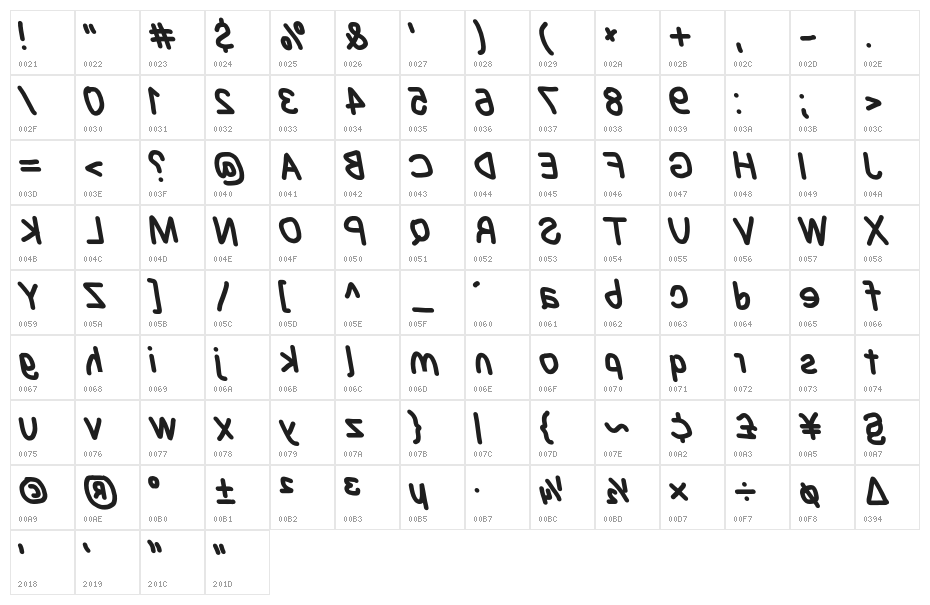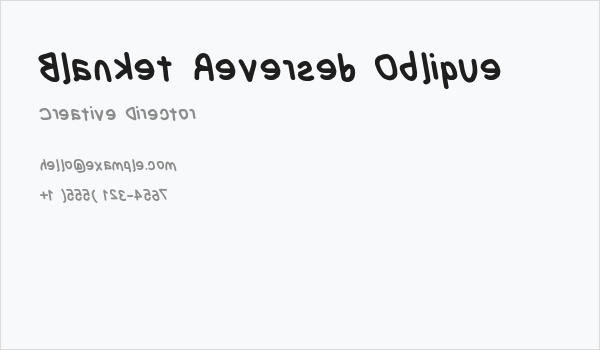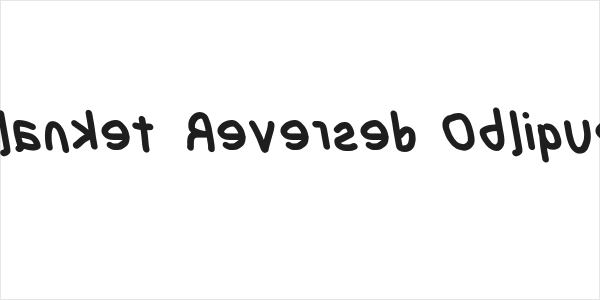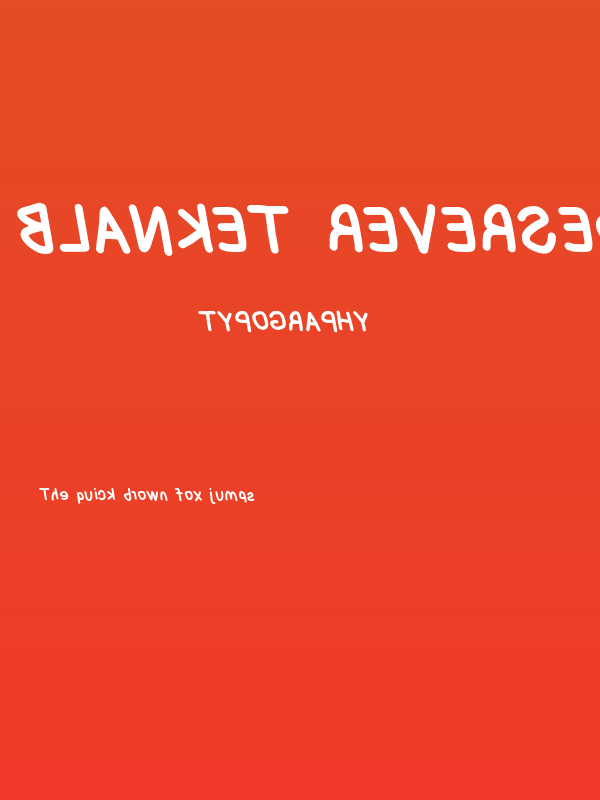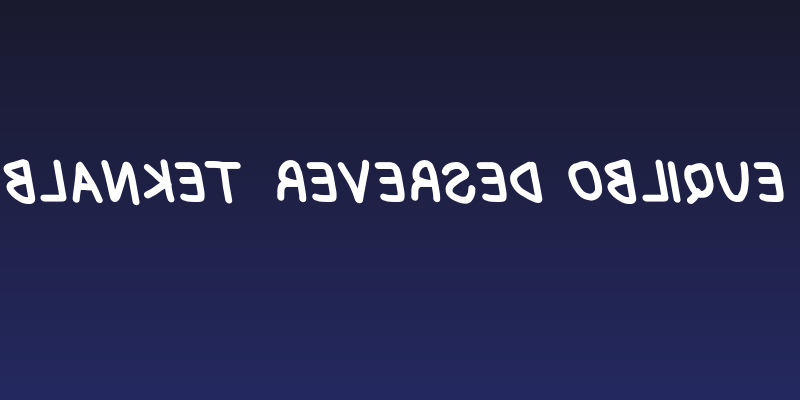
Blanket Reversed Oblique Font
Blanket Reversed Oblique Description
This playful and dynamic font features a reversed oblique style, giving it a unique and quirky appearance. The characters are bold and rounded, with a hand-drawn feel that adds a touch of whimsy. The letters are slightly tilted, enhancing the casual and informal vibe. This font is characterized by its thick strokes and consistent weight, making it highly legible while maintaining a fun and approachable aesthetic. The spacing between characters is relatively tight, which helps maintain a cohesive look across text. The overall style is modern and decorative, suitable for projects that require a touch of creativity and individuality.
| Proposed Projects | Ideal for children's books, playful branding, creative posters, and informal invitations. |